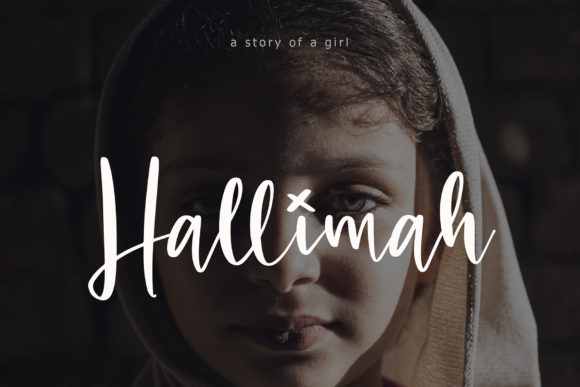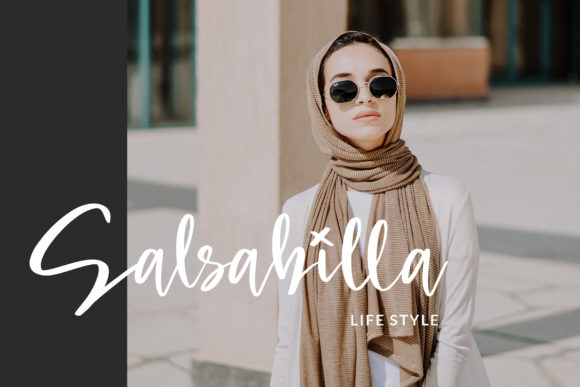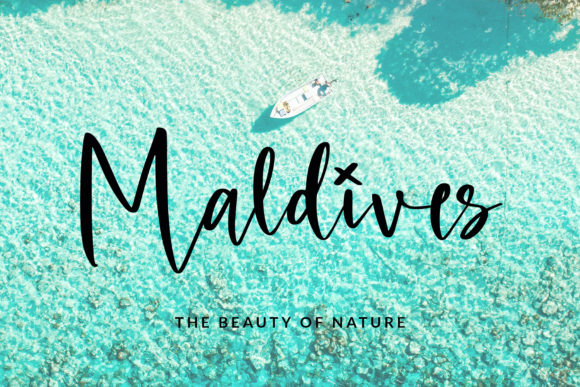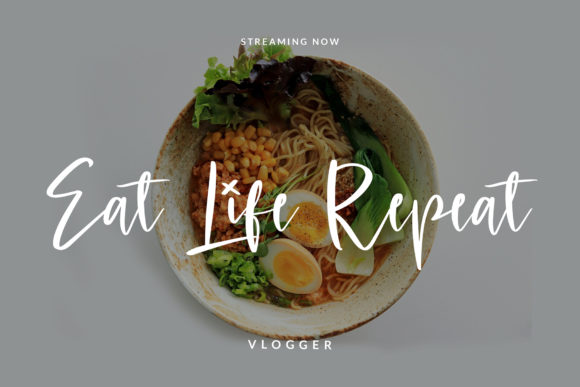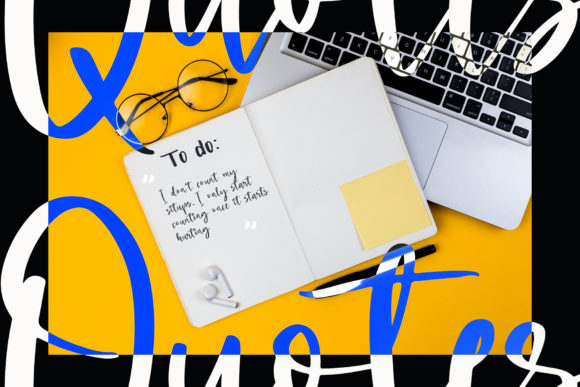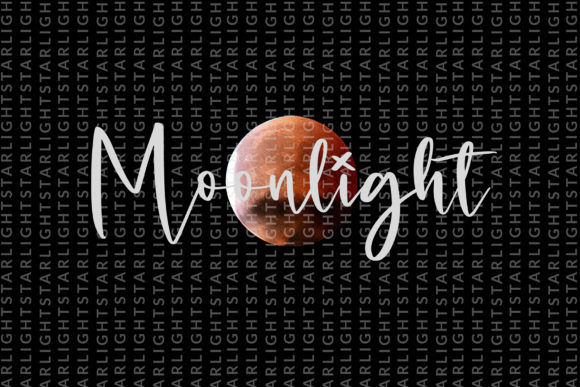
Introduction to Leghis Font
You’ve finally nailed the concept for your creative project, and now it’s time to bring it to life. As you browse through your design library, you’re met with a sea of fonts that seem to scream ‘overused.’ But then, you stumble upon it – the perfect match for your whimsical vision. Leghis Font is that elusive gem that can elevate any design, giving it a unique charm that sets it apart from the rest.
With its relaxed theme and lovely style, Leghis Font is an incredible asset to any designer’s library. Whether you’re working on a free download or a high-quality design project, this font has the potential to add that extra oomph that takes your creation from meh to mesmerizing.
And the best part? Leghis Font is designed with versatility in mind, allowing you to pair it with a transparent background or a bold graphic element. As a valuable design resource, this font is sure to become your go-to choice for any creative project that demands a touch of elegance and sophistication.
Key Features of Leghis Font
- High-quality, professional font design ideal for creative projects and design resources.
- Leghis Font features a transparent background, allowing for easy customization and integration with any design element.
- Unique characteristic: Leghis Font’s distinctive style and elegant design make it perfect for use in high-end design projects, such as luxury branding and advertising materials.
Honest Review: Leghis Font
As a designer, I’m always on the lookout for high-quality fonts that can elevate my creative projects. Leghis Font is one such resource that caught my attention, and I’m excited to share my thoughts on it.
- The font comes with a transparent background, allowing for seamless integration into any design.
- The font is perfect for creative projects that require a unique and stylish touch.
Overall, I’m impressed with Leghis Font’s quality and versatility. It’s a great resource for designers working on personal or non-commercial projects. However, its limitations may not make it suitable for all design needs.
Tips for Getting the Most Out of Leghis Font
For a high-quality design, use the Leghis Font with a transparent background to create a clean and minimalist look. This font is ideal for creative projects that require a modern and sophisticated touch.
Leghis Font is commonly used in branding, logos, and marketing materials due to its sleek and modern design. It’s also suitable for use in presentations, reports, and other business documents where a professional look is desired.